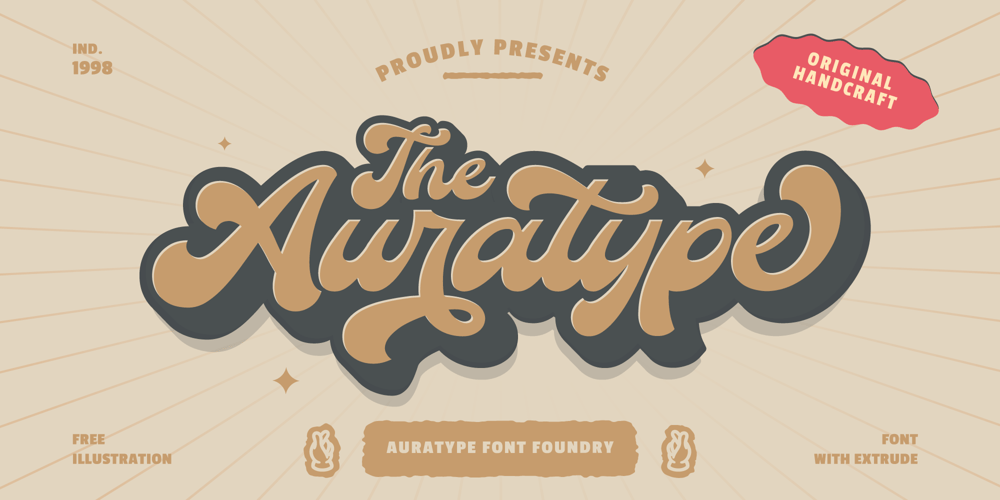
The Auratype Font Family was designed by Wahyu Dwi Cahyo and published by Auratype Studio. The Auratype contains 2 styles and family package options. Hai Folks!The Auratype is retro and classic typeface who inspired by the 60s – 80s designs with more unique explored style like swosh and alternate character. This font made from manual sketch with many many scratch then finished to font. Make your designs project with this font and extras illustration to give more superb. This font also suitable to design like logo, sticker, tees design, banner, poster, sign, display design, packaging and more superb designs!Enyoy with our product and feel free contact us for support!Features :Full set of Upper & Lowercase CharacterNumber & PunctuationSwosh AlternateExtras IllustrationMultilingual LanguagePUA encodedOpentype Features_________▼To using the feature OpenType Stylistic alternate (including swosh), you must use program that supports OpenType such as Adobe Illustrator CS, Adobe Indesign, Corel Draw X6-X7 and Microsoft Office 2010 or later versions. Additional way to access alternate/swoshes are using Character Map (Windows), Nexus Font (Windows), Font Book (Mac), or more program which has Pop Character.▼For more information about accessing alternative, you can see on this link : http://adobe.ly/1m1fn4Y✌ Get in touch with authorhttps://www.instagram.com/wahyudwi.cc/https://www.instagram.com/auratype/https://www.behance.net/fontsfighters❤ Thank you for purchasing our product and supporting us! We hope this font can be part of your designs project. If you have other queries, questions or issues, just feel free and have fun to contact us directly. We are glad if we can help you more!If you are happy with our product, please put your star into our design reviews, it was so fantastic moment for us. Thanks! 🙂